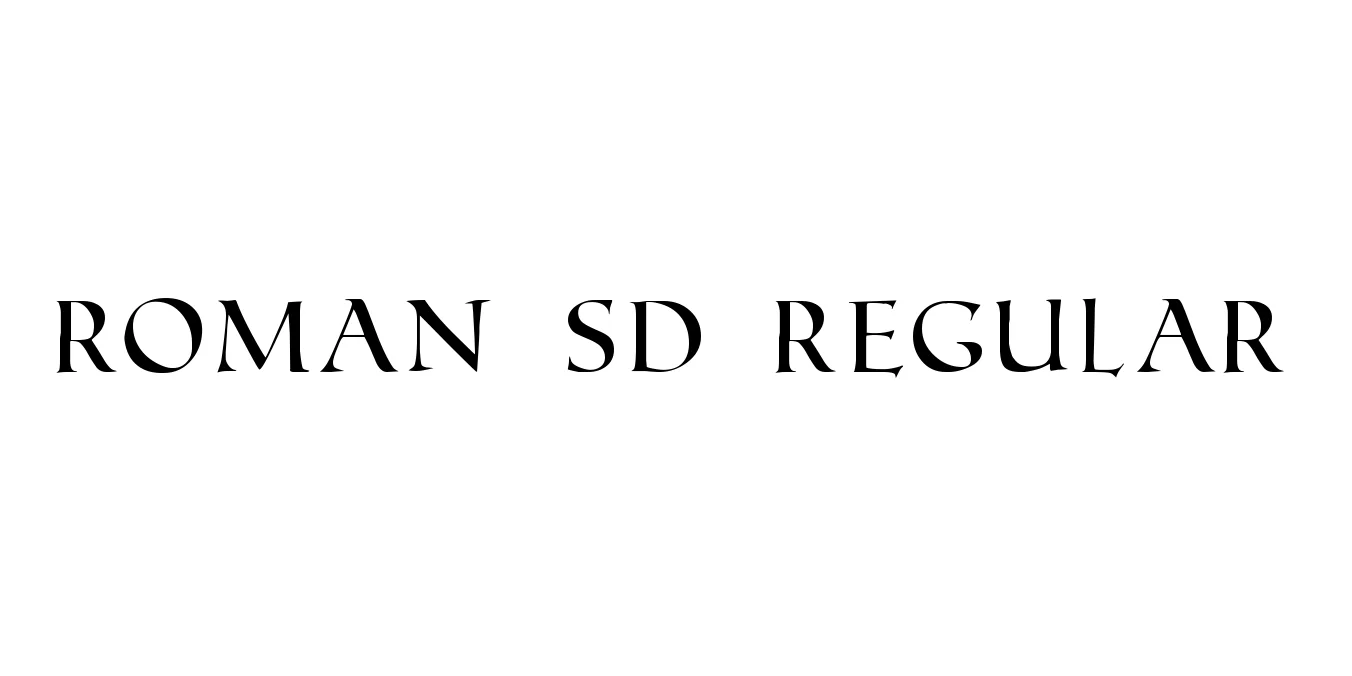
Roman SD Regular
Designed by Steve Deffeyes
Roman SD Regular is a distinguished serif typeface designed by Steve Deffeyes. It draws heavy inspiration from the classical Roman monumental capitals found on ancient architecture, specifically focusing on the proportion and elegance of traditional lapidary inscriptions. The design features sharp serifs and a high-contrast stroke weight that evokes a sense of timeless authority and historical gravitas.
This typeface is particularly effective in settings where a formal and sophisticated atmosphere is required. Whether used for titling, book covers, or commemorative plaques, Roman SD Regular maintains excellent legibility while providing a distinct aesthetic that bridges the gap between antiquity and modern digital design. Its balanced letterforms make it a staple for designers looking to convey stability and prestige.
Roman SD Regular Best Uses
Ideal for large-scale headers and book titles.
Perfect for high-end magazine layouts and academic publications.
Used for luxury brands seeking a heritage or classic feel.
Suitable for formal wedding or event stationery.